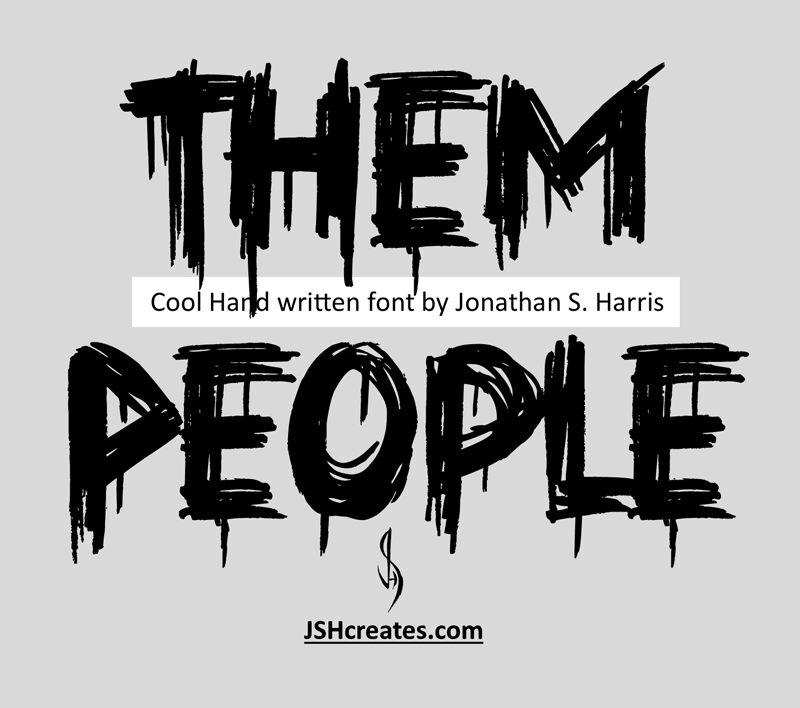
Them People by Jonathan S Harris is a bold display font with a scary trash style. It's perfect for horror-themed projects, Halloween decorations, or spooky album covers. Unleash your creativity and let the sinister vibes take over!